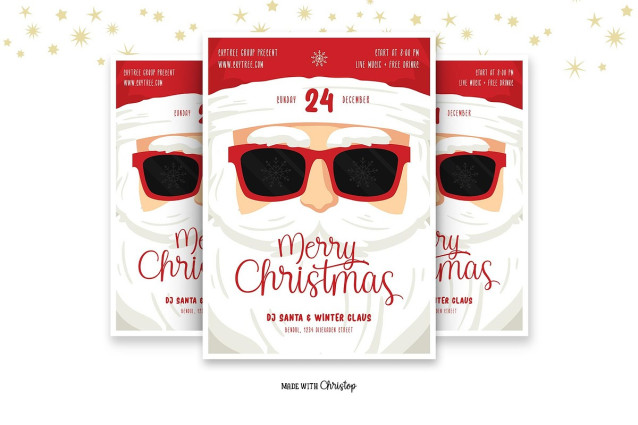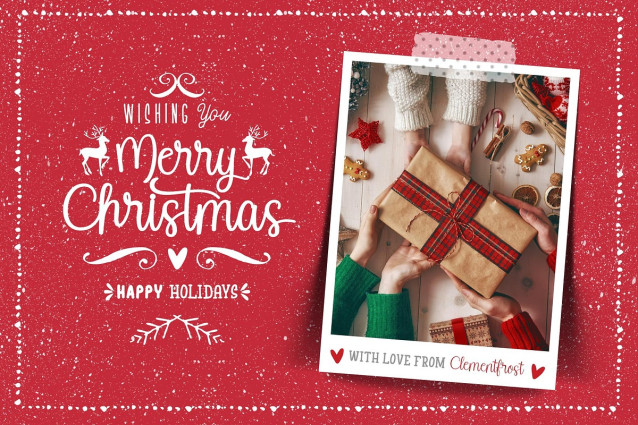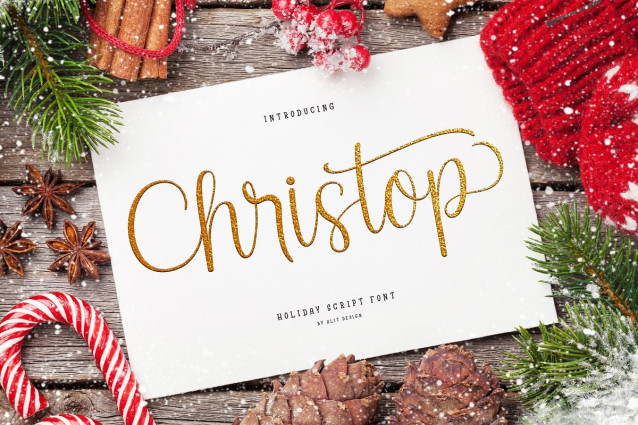
Christop Script Font
Christop Script Font is a font that uses a unique handwriting script style to create designs that are both relaxed and eye-catching. This font is very easy to apply to various types of designs such as designs for Christmas, greeting card designs, designs for making elegant, relaxed text headers.
Can be used for the design of poster, Big sale sign, greeting card , packaging designs, New Year design and so on with the winter season concept.